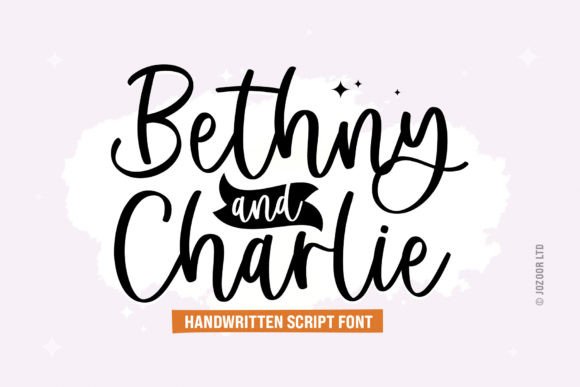
Dive into the world of elegance and sophistication with Bethny Charlie Font, the ultimate script font that exudes luxury and style. Step into a realm where your designs attain an air of exclusivity, leaving a lasting impression on your audience.
Bethny Charlie Font is a breathtaking creation of Jozoor, a master in the art of digital typography. Each letter is crafted with meticulous attention to detail, boasting beautiful and well-balanced characters that effortlessly elevate your designs to new heights. Its flowing strokes and graceful curves add a touch of elegance to any project, making it the perfect choice for creating logos, branding, and quotes that demand attention.
With Bethny Charlie Font, you'll unlock a world of creative possibilities. Its versatility knows no bounds, adapting seamlessly to a wide range of design aesthetics. Whether you're working on a high-end fashion campaign, a luxury product launch, or an unforgettable wedding invitation, Bethny Charlie Font will effortlessly elevate your vision, transforming your ideas into stunning realities.
Imagine your designs adorned with Bethny Charlie Font, captivating your audience with its innate charm and allure. Its timeless beauty transcends trends, ensuring that your creations remain relevant and captivating for years to come.